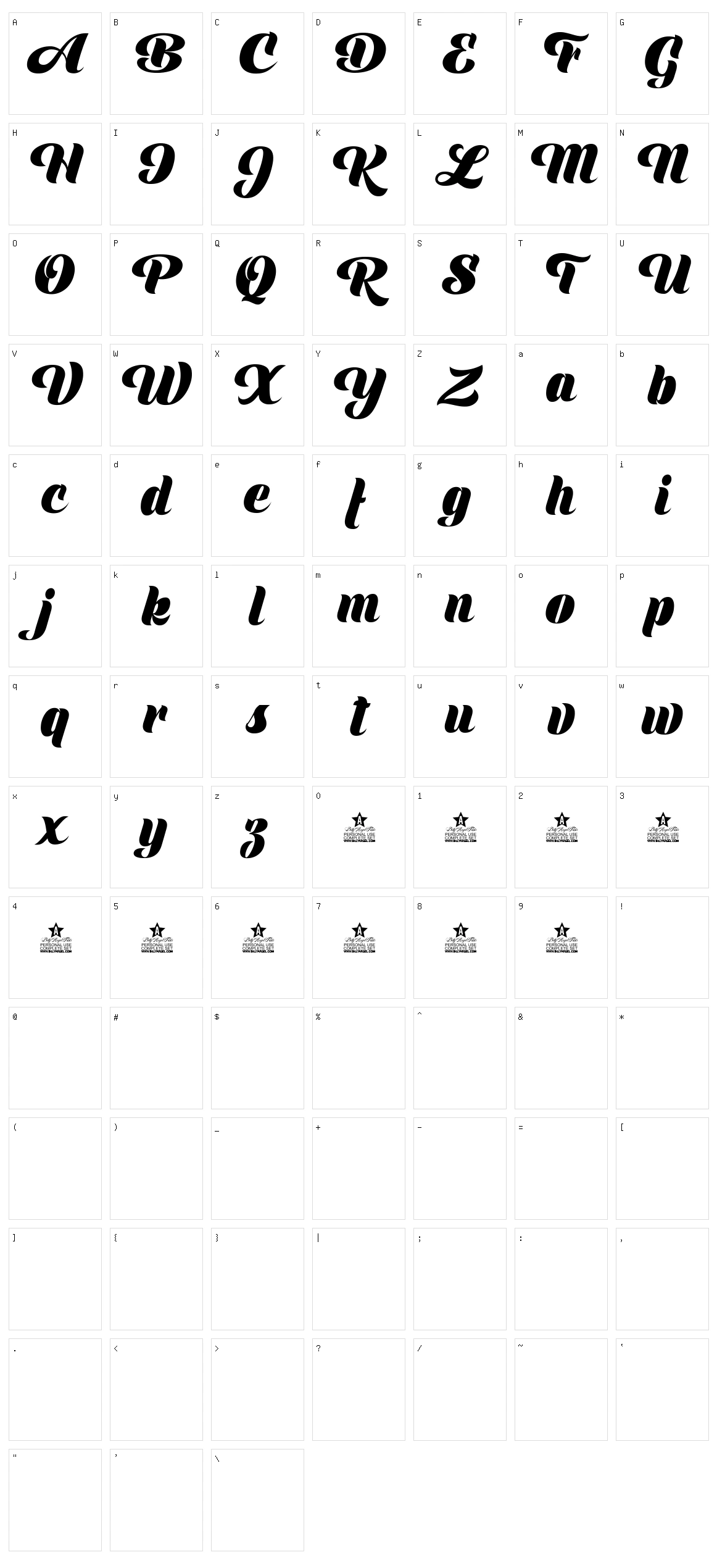
The free font Shine is carefully designed by Billy Argel Fonts ?, showcasing a thoughtful balance of creativity and usability and falls under the Old-School font style. When you download the ZIP file, it contains only 230.7 KB of font files, making it lightweight and quick to download. Please review the license details below to understand permitted usage and distribution rights. If license information is not available, we recommend using this font for personal projects only or contacting the author directly for commercial usage permissions.